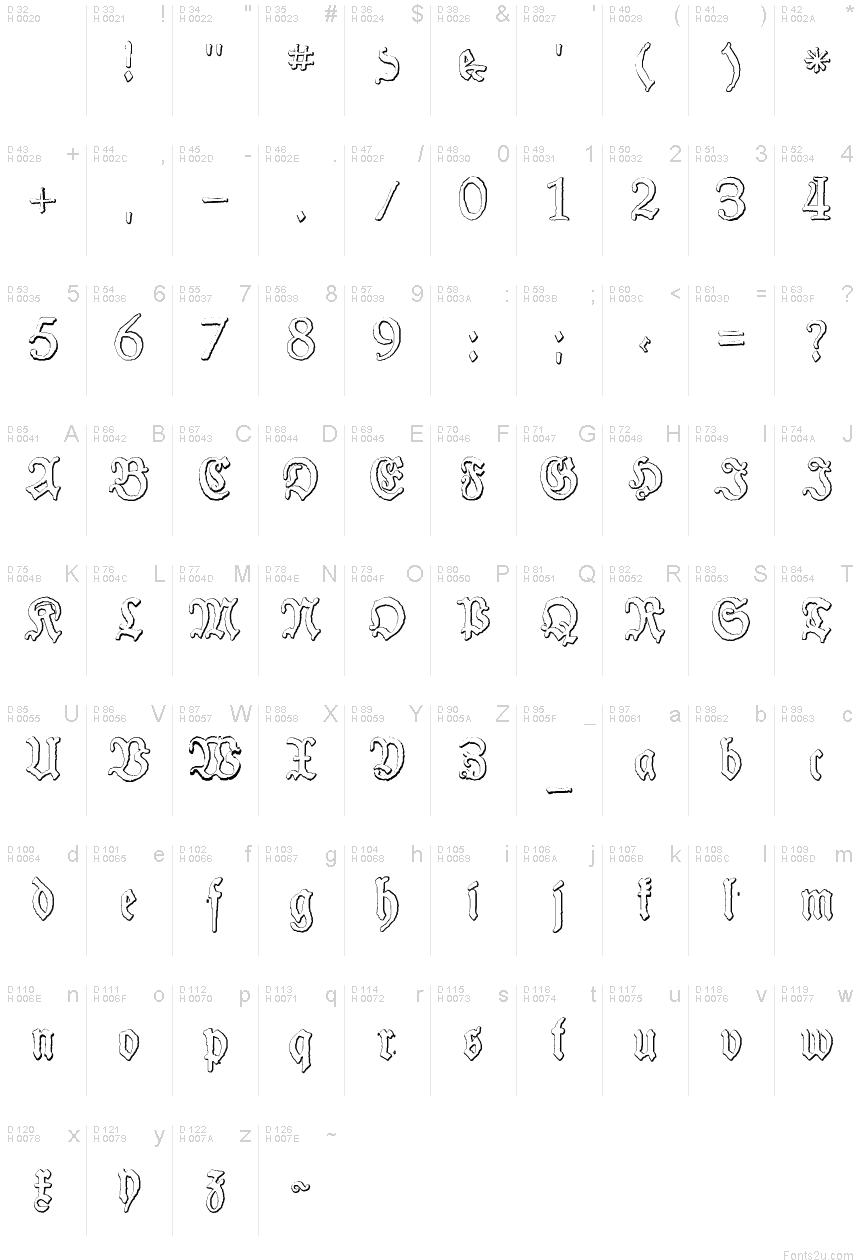
Schneider Buch Deutsch Beveled by Paulo W of Intellecta Design is a free outlined medieval blackletter font with broad, irregular forms and deeply cut contours. Its rolling curves and forked details give the alphabet a carved, almost molten silhouette. The uneven edges keep it lively.
Those sculpted shapes can become part of heraldic illustration or ornamental borders rather than acting as neutral type. They suit fantasy game packaging, music posters, historical event graphics, and merchandise, especially when the lettering is treated as an emblem within the artwork.